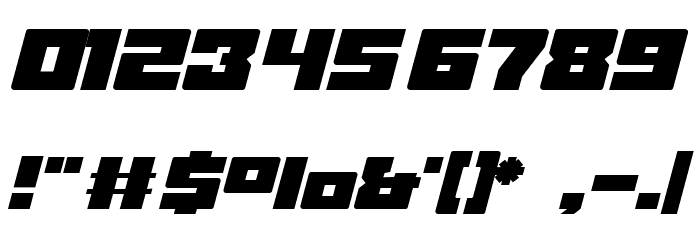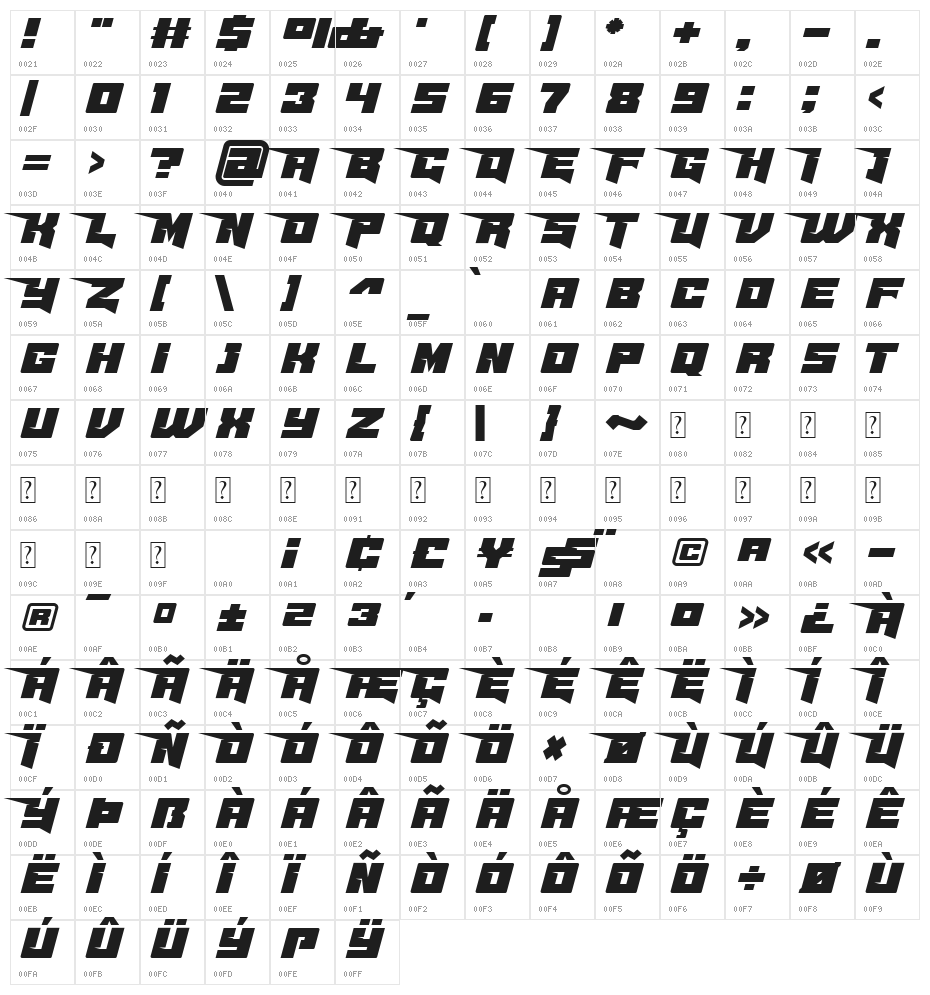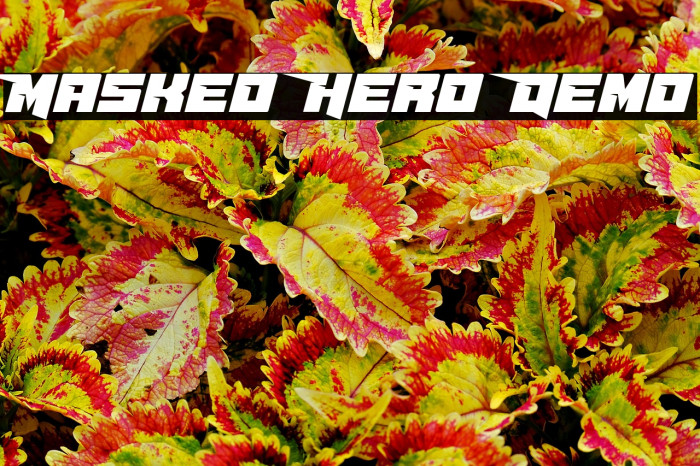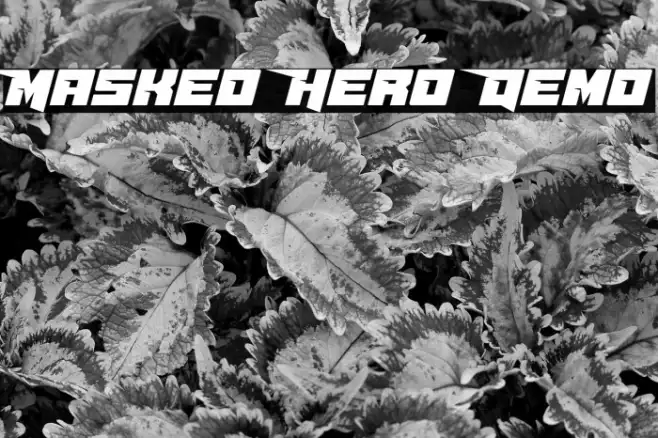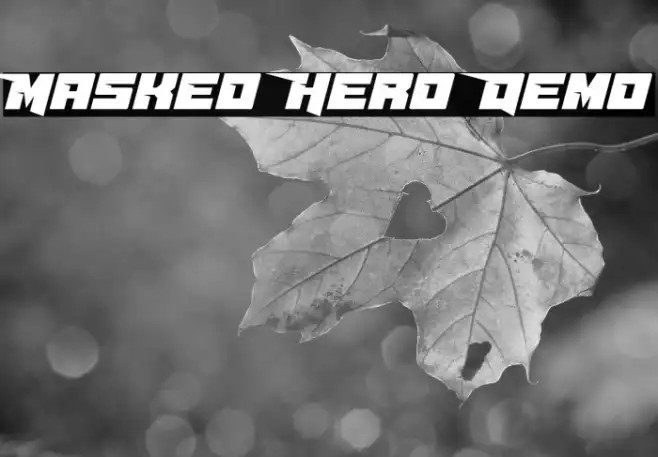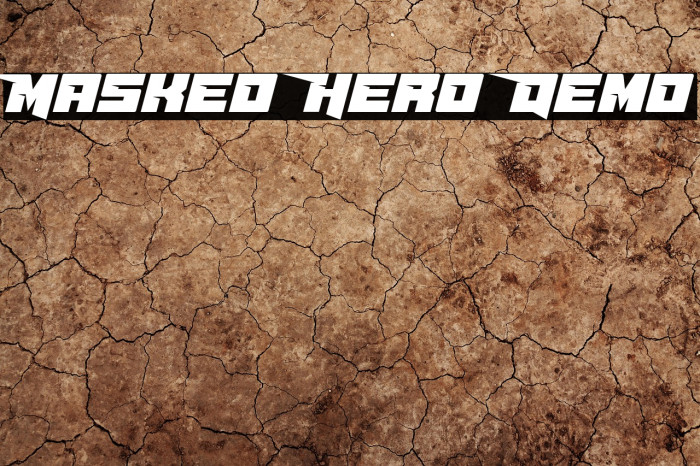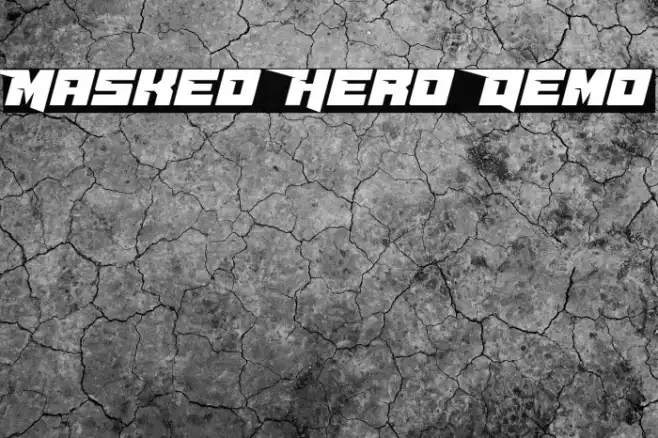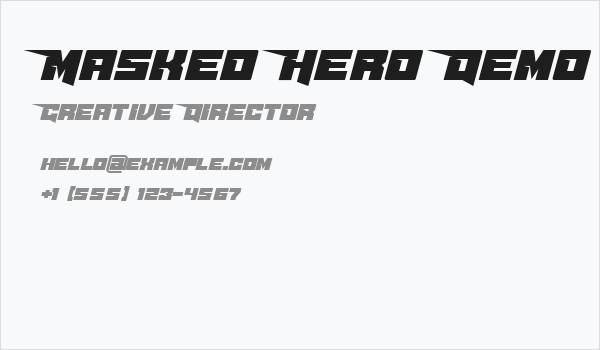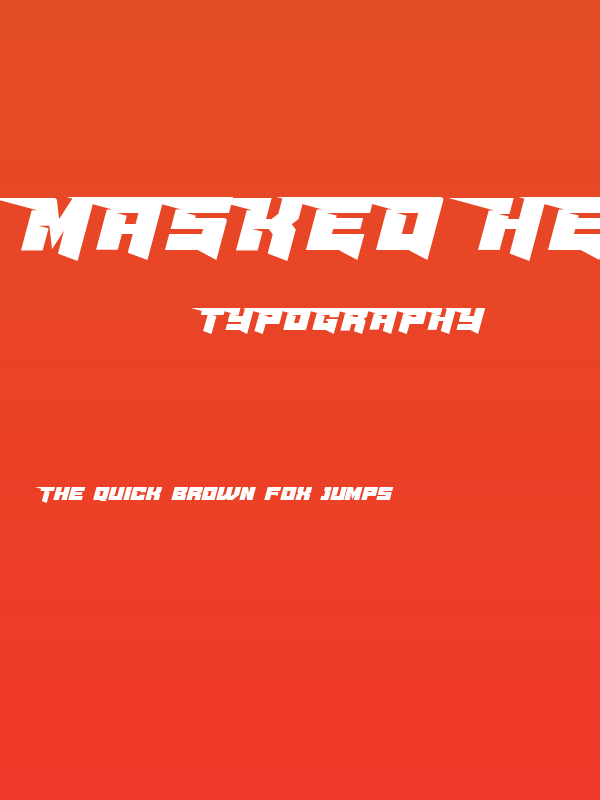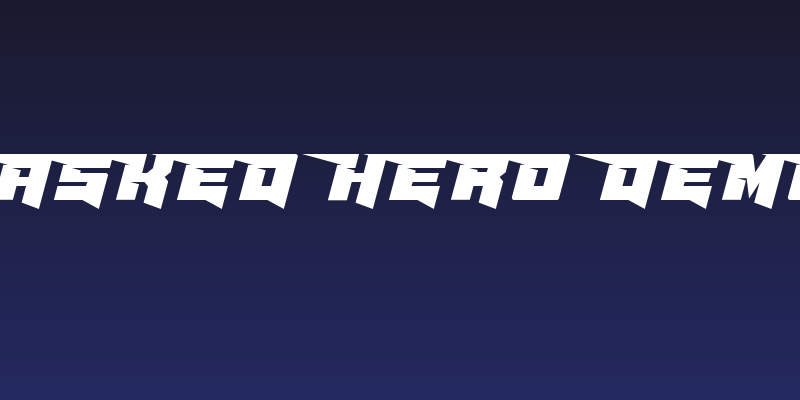
Masked Hero Demo Font
Masked Hero Demo Description
This font features a bold, angular design with a futuristic and dynamic appearance. The characters are sharply cut with a distinct geometric style, giving them a powerful and aggressive look. The uppercase and lowercase letters maintain a consistent style, with the lowercase slightly smaller but equally bold. The numbers and special characters follow the same design principles, ensuring uniformity across all glyphs. This font is ideal for projects that require a strong visual impact, such as gaming titles, action movie posters, or sports branding.
| Proposed Projects | Ideal for gaming titles, action movie posters, sports branding, and dynamic logos. |